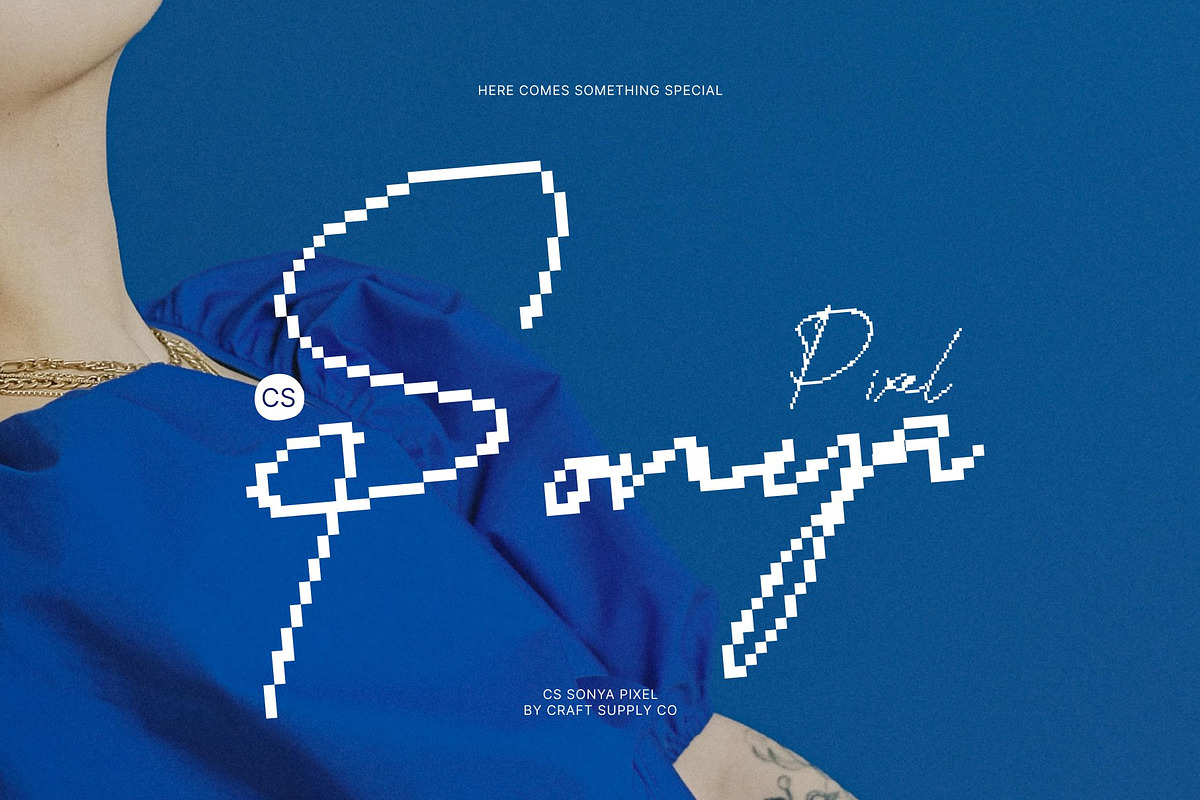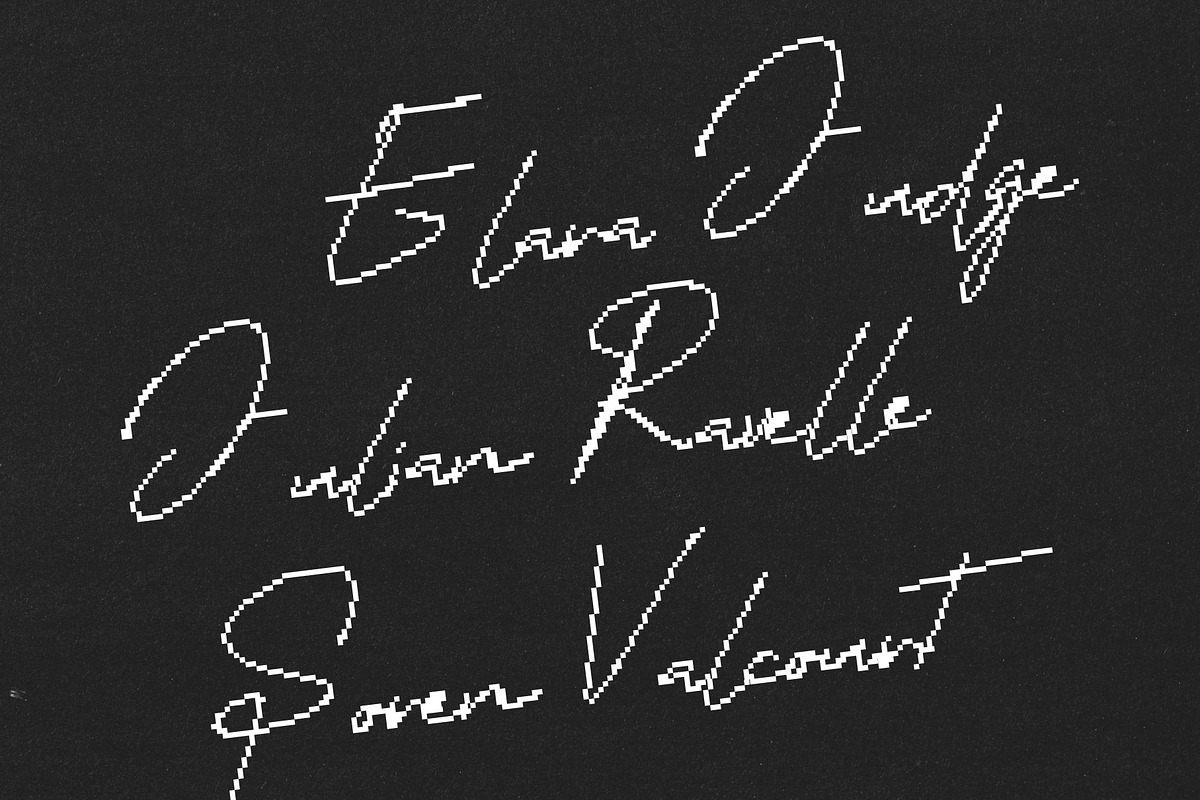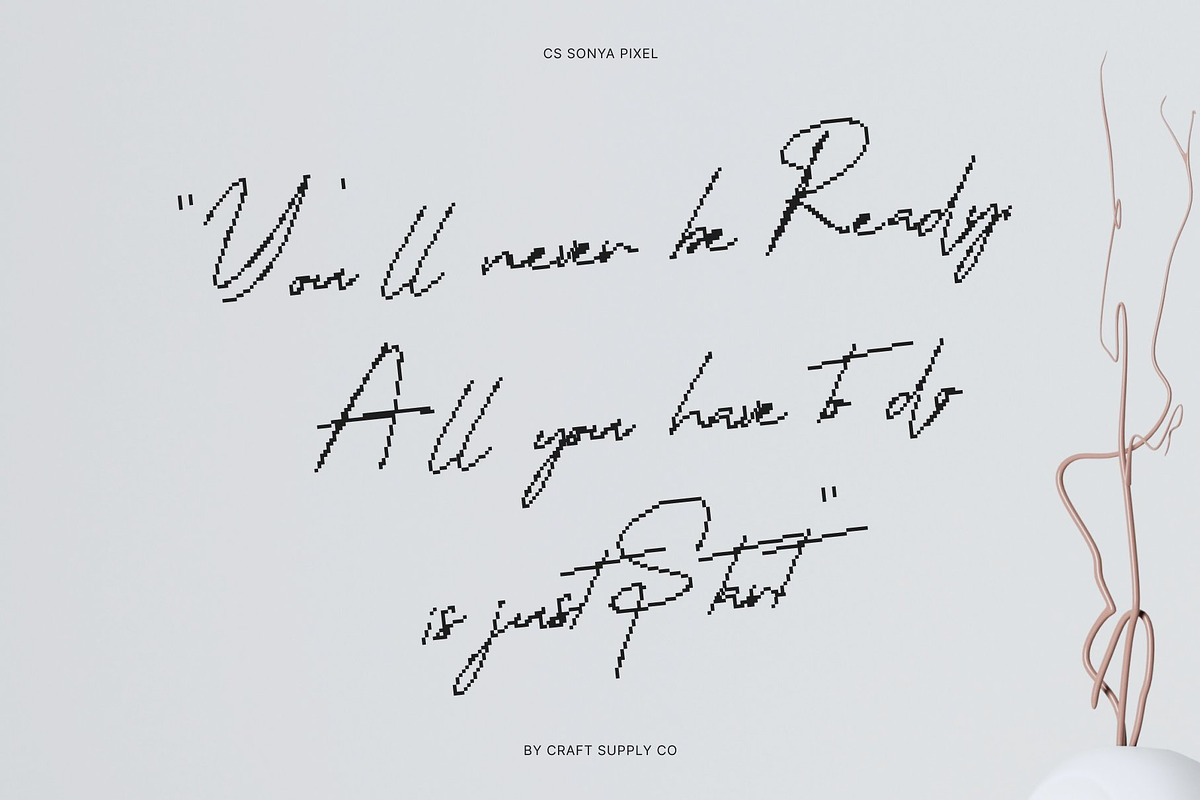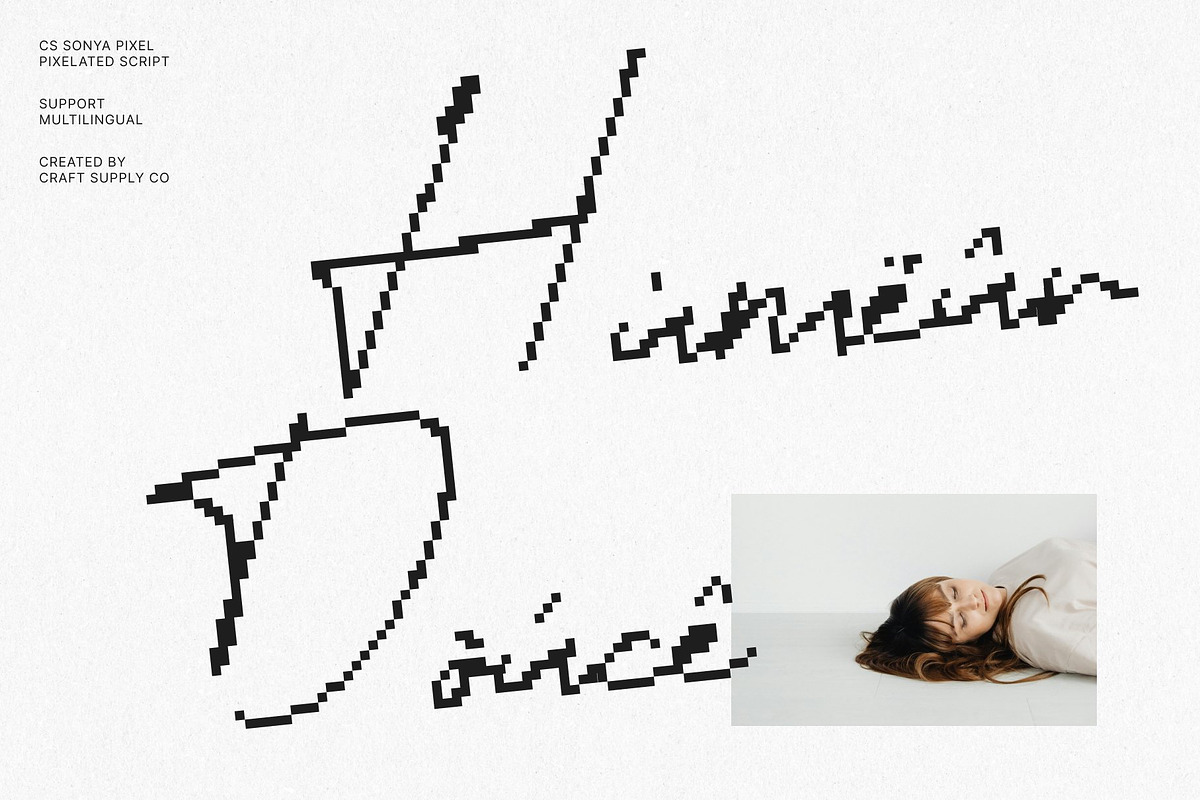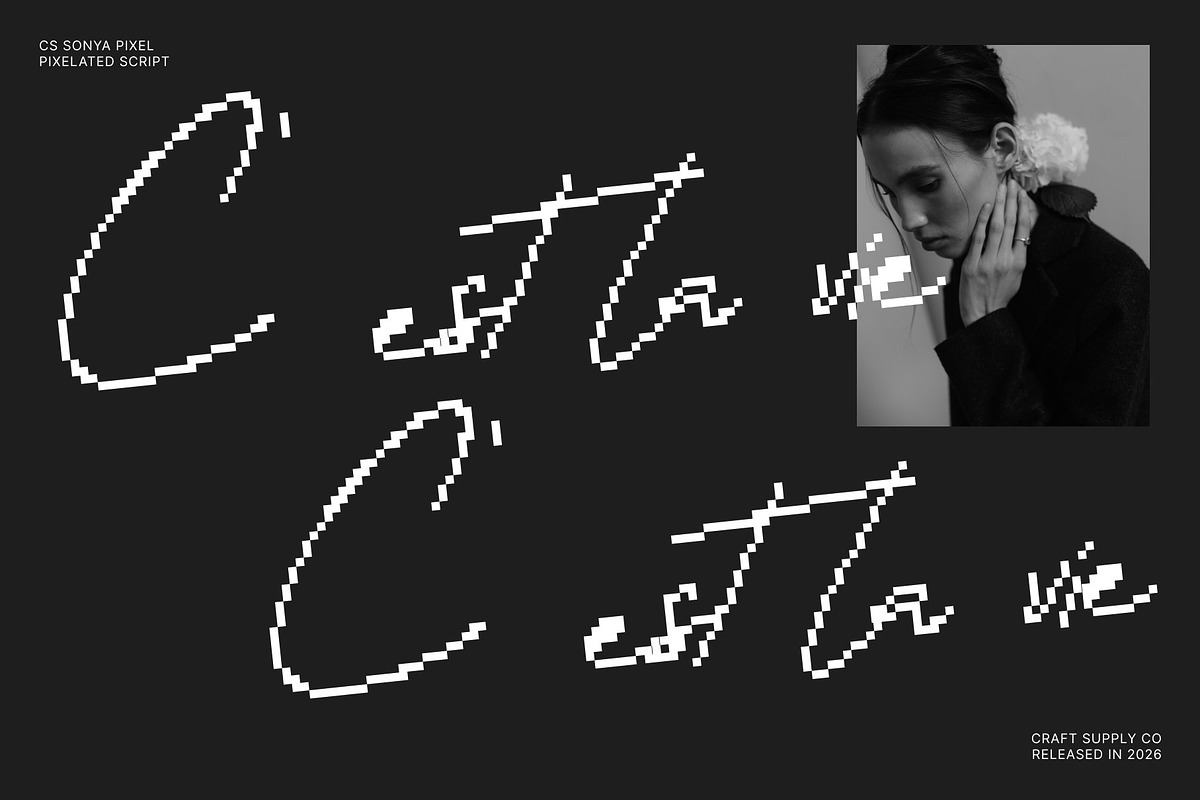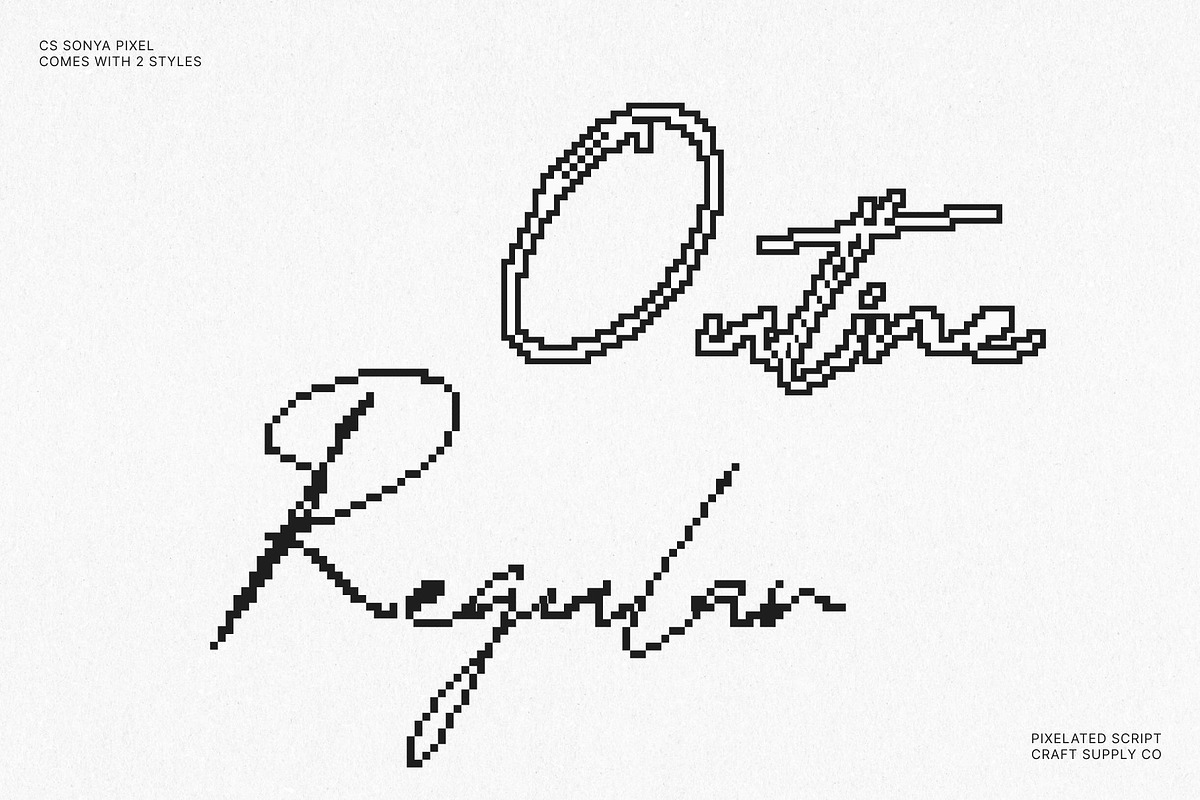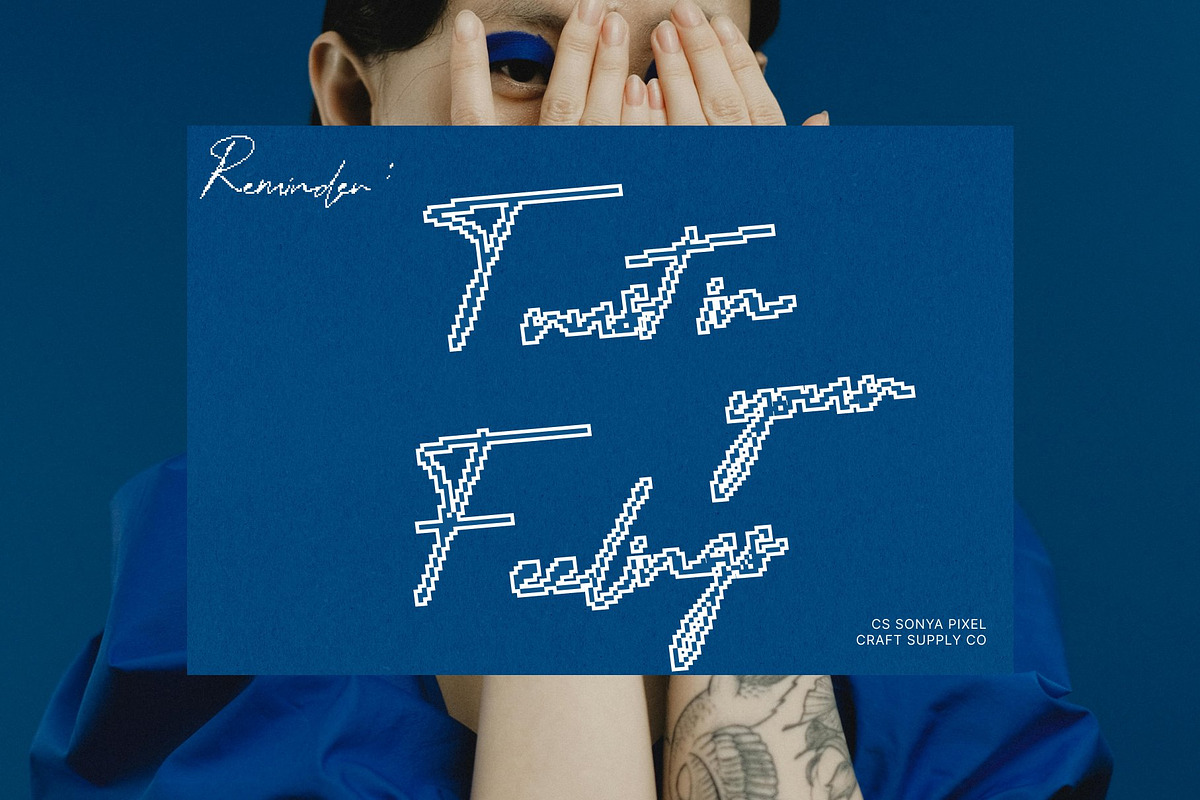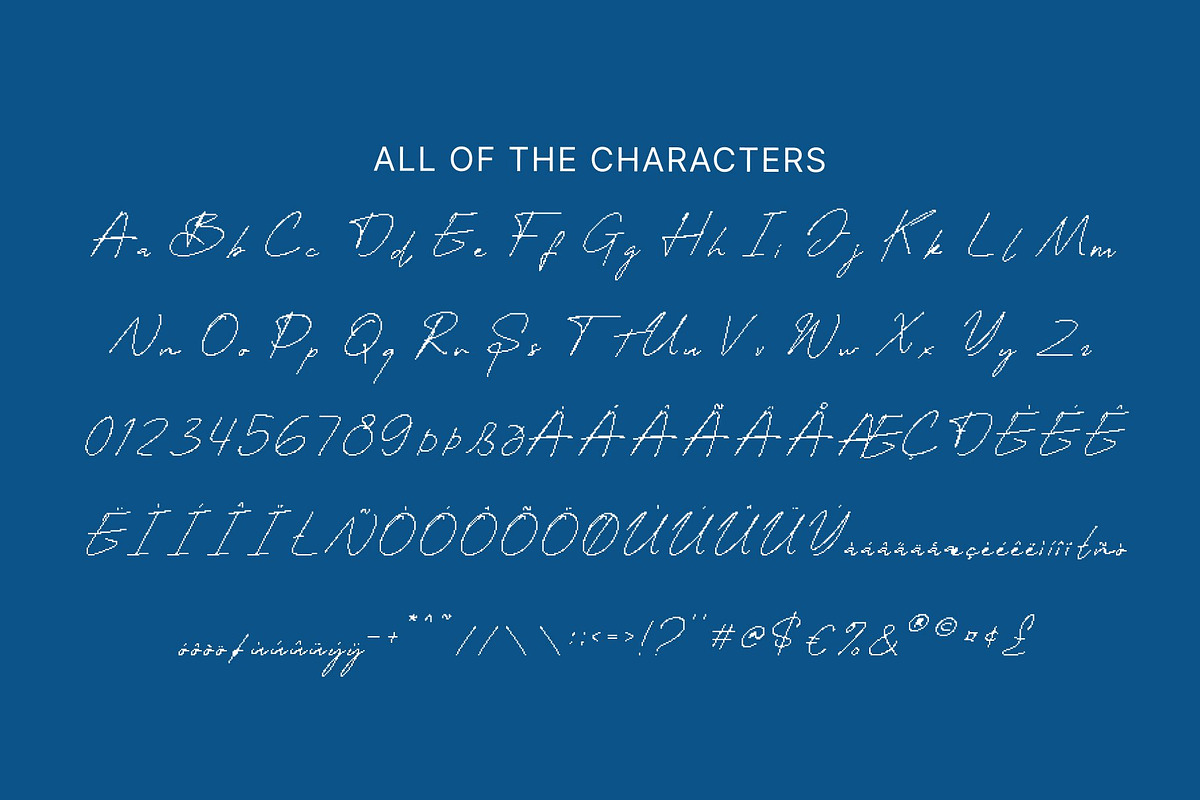
CS Sonya Pixel
CS Sonya Pixel – Personal Signature Style with Timeless Elegance
Signature Script with Pixel-Refined Authenticity This is a signature script font designed to capture the individuality and fluid grace of real handwritten signatures, enhanced with delicate pixel detailing. Inspired by natural pen movement, it delivers an authentic, personal feel while introducing a subtle contemporary digital edge. The smooth flow and confident strokes create a refined presence that feels both exclusive and modern.
Natural Flow with Distinctive Digital Character Featuring graceful connections and organic stroke variations, each letter mirrors the spontaneity of genuine signature writing. Subtle pixel nuances add crisp definition without disrupting the natural rhythm, resulting in a harmonious blend of handcrafted warmth and structured precision. This balance makes every word feel custom, thoughtful, and uniquely personal.
Elegant Expression for Premium Design This font balances sophistication and sincerity, making it ideal for high-end visual identities. Its signature style conveys luxury and professionalism while retaining an intimate human touch. The pixel refinement enhances clarity across digital and print platforms, ensuring elegance with contemporary sharpness.
Ideal for Logos, Branding, and Luxury Invitations Perfect for logos, boutique branding, wedding invitations, packaging, fashion labels, and beauty-related projects, this font elevates designs with personal prestige. This font transforms typography into a distinctive mark timeless, graceful, and subtly enhanced with modern pixel precision.
- CS Sonya Pixel Regular
- CS Sonya Pixel Outline